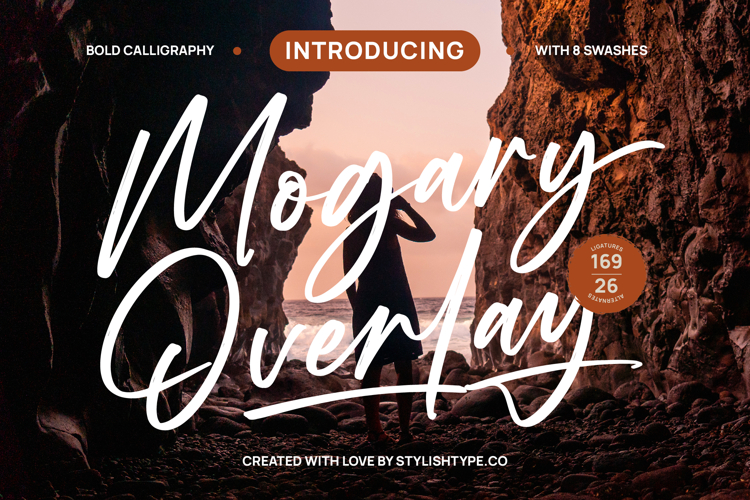
Mogary Overlay - Bold Calligraphy Font
Unleash unparalleled elegance with Font Mogary Overlay - Bold Calligraphy Font Script, a typeface designed to captivate and impress. This bold calligraphy masterpiece exudes a dynamic, handcrafted charm, making every word a work of art. Its fluid strokes and confident presence create a truly expressive script, perfect for projects demanding an artistic yet legible statement. Elevate your designs with its distinctive aesthetic that seamlessly blends traditional warmth with modern impact.
Discover limitless creative possibilities within Font Mogary Overlay - Bold Calligraphy Font Script, featuring an abundance of typographic enhancements. With over 169 ligatures, 26 alternates, and 8 elegant swashes, this font offers exceptional customization. Each character is meticulously crafted to ensure a natural flow and genuine appeal, providing the tools needed to achieve a truly unique and sophisticated visual identity for your brand. This extensive toolkit ensures your typography always looks bespoke.
Expand your creative reach across borders with the inherent global capability of Font Mogary Overlay - Bold Calligraphy Font Script. With its extensive multilingual support, Font Mogary Overlay - Bold Calligraphy Font Script adapts seamlessly across global markets, making it incredibly versatile for international projects. This ensures your message resonates clearly and beautifully, regardless of language, fostering a consistent and professional brand presence worldwide.